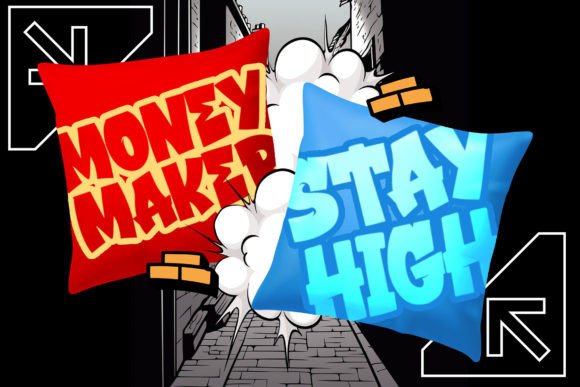
Street Fruit Font
STREET FRUIT: A bold and modern display graffiti font. Perfect for making a statement with your designs. Add an urban edge to your projects with this eye-catching typeface.